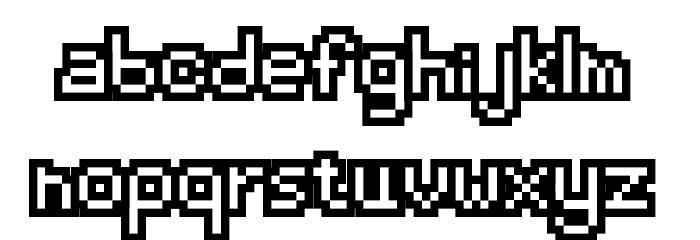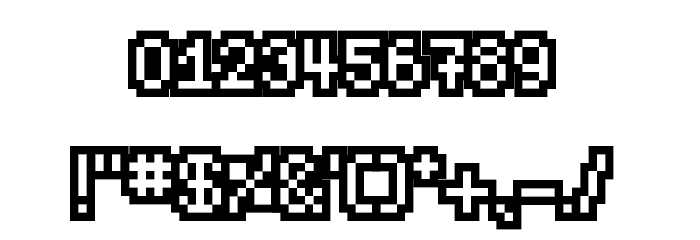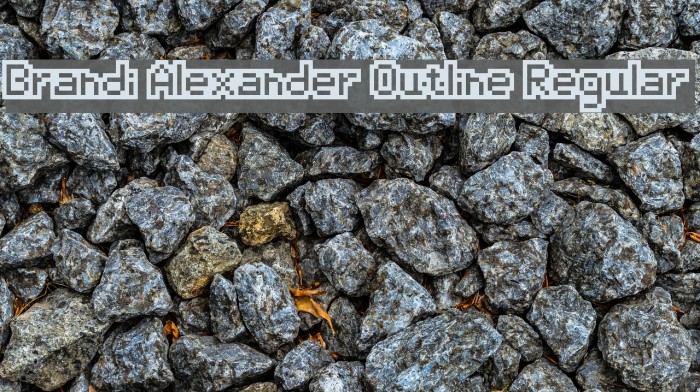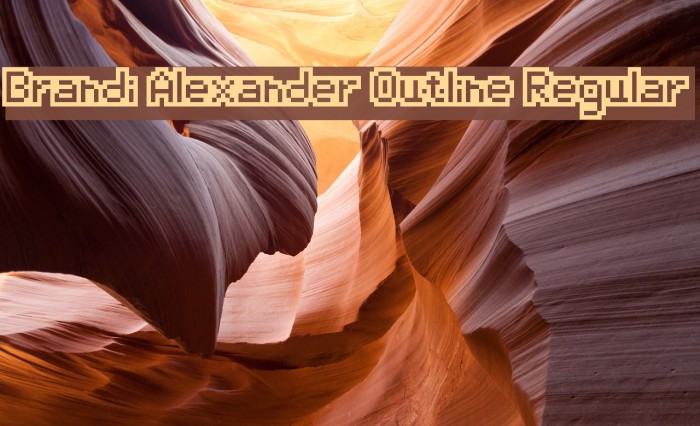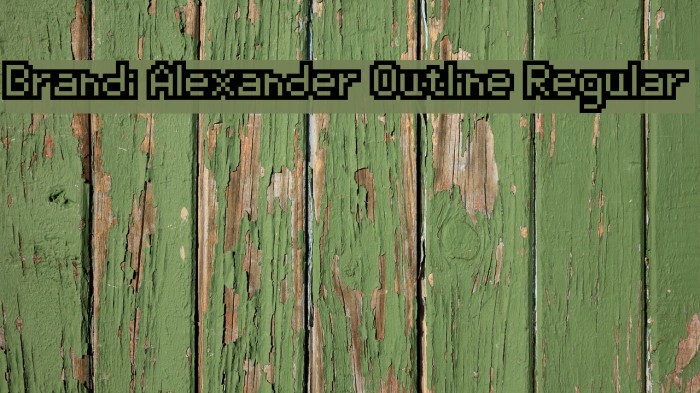
Brandi Alexander Outline Regular Font
This font features a bold, pixelated outline style that evokes a retro, digital aesthetic. The characters are constructed with a blocky, grid-like structure, giving them a distinct, geometric appearance. The uppercase and lowercase letters maintain a consistent height and width, contributing to a uniform look. The numbers and special characters follow the same design principles, ensuring cohesion across all glyphs. This font's outline nature adds a layer of depth, making it stand out in digital and print media. Its unique style is reminiscent of early computer graphics and video game typography, making it ideal for projects that aim to capture a nostalgic or tech-inspired feel.
A bold, pixelated outline font with a retro digital aesthetic.
- Font: Brandi Alexander Outline Regular
- Proposed Projects: Ideal for video game graphics, retro-themed posters, digital art, and tech-inspired branding.
- Overall Style: Retro, Digital